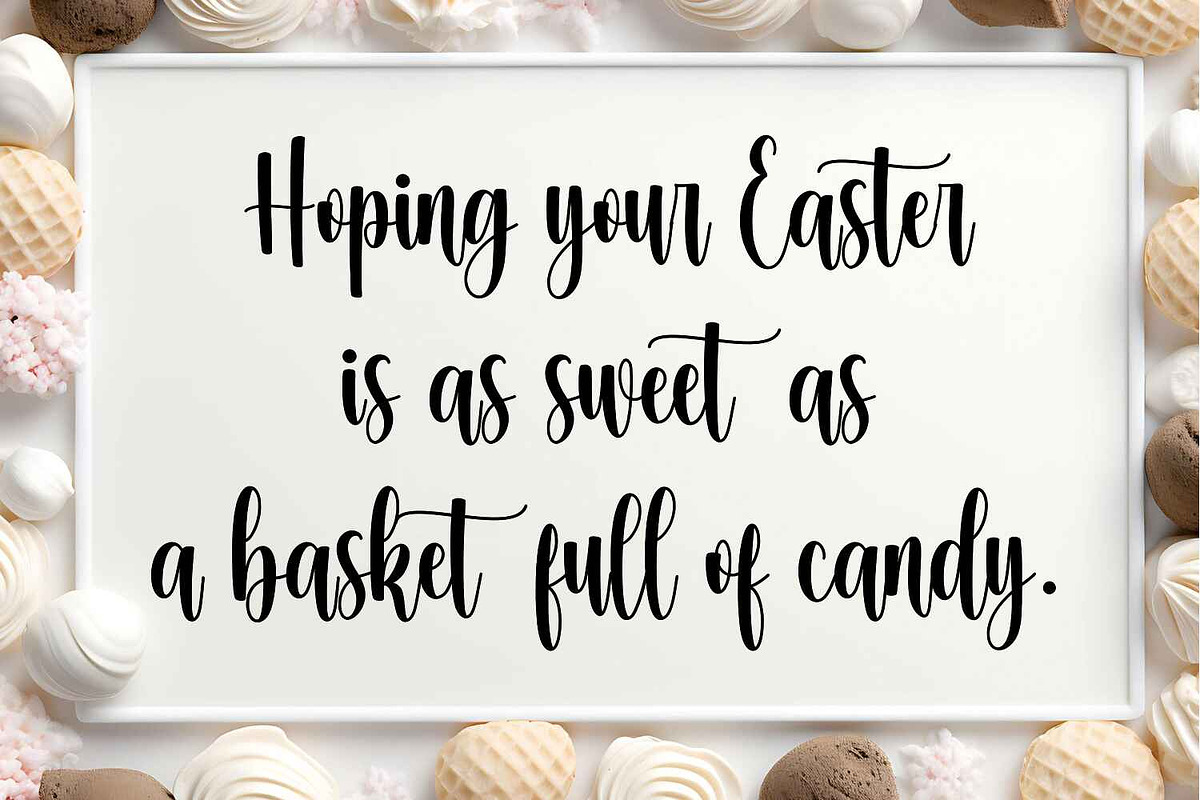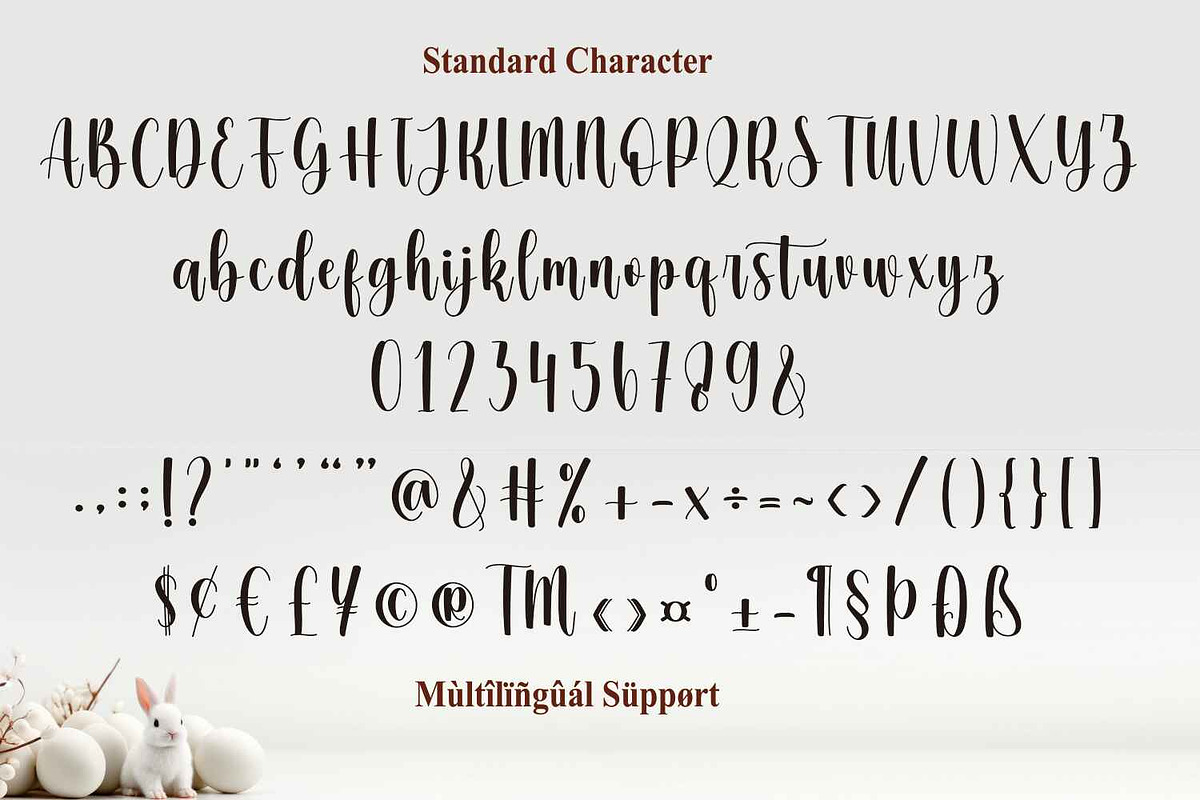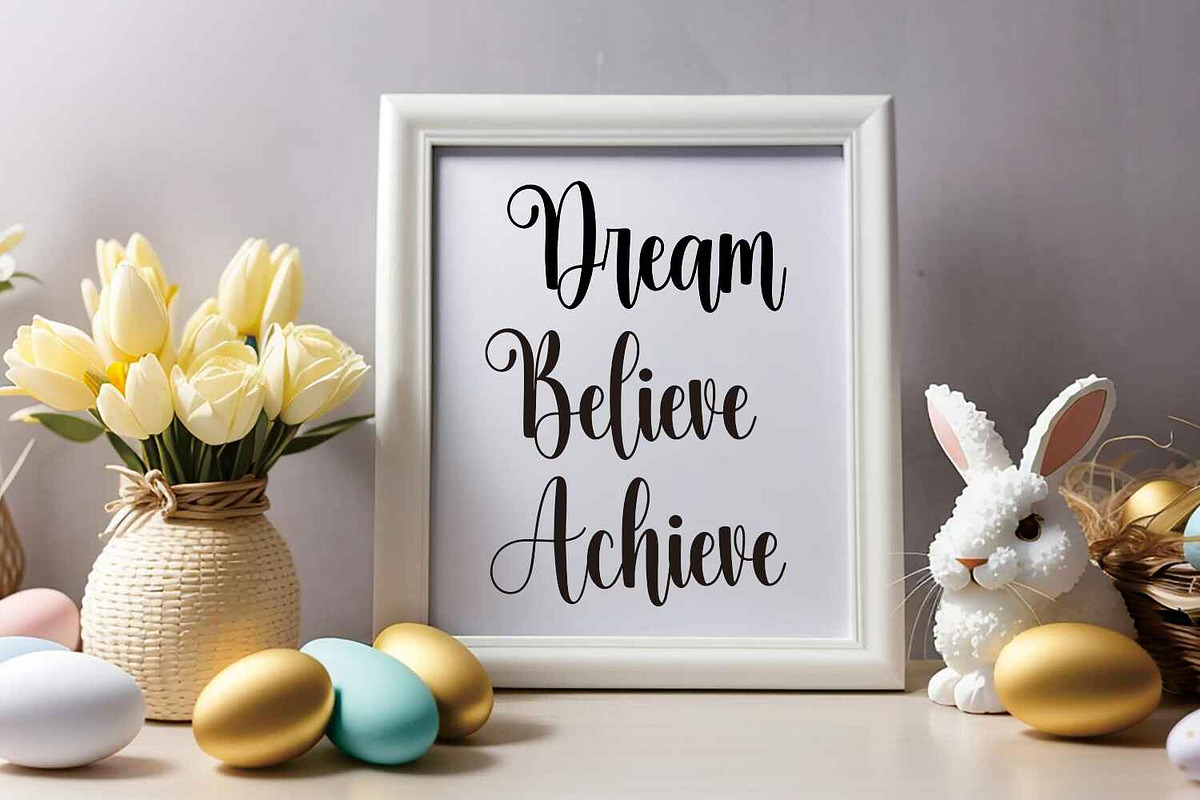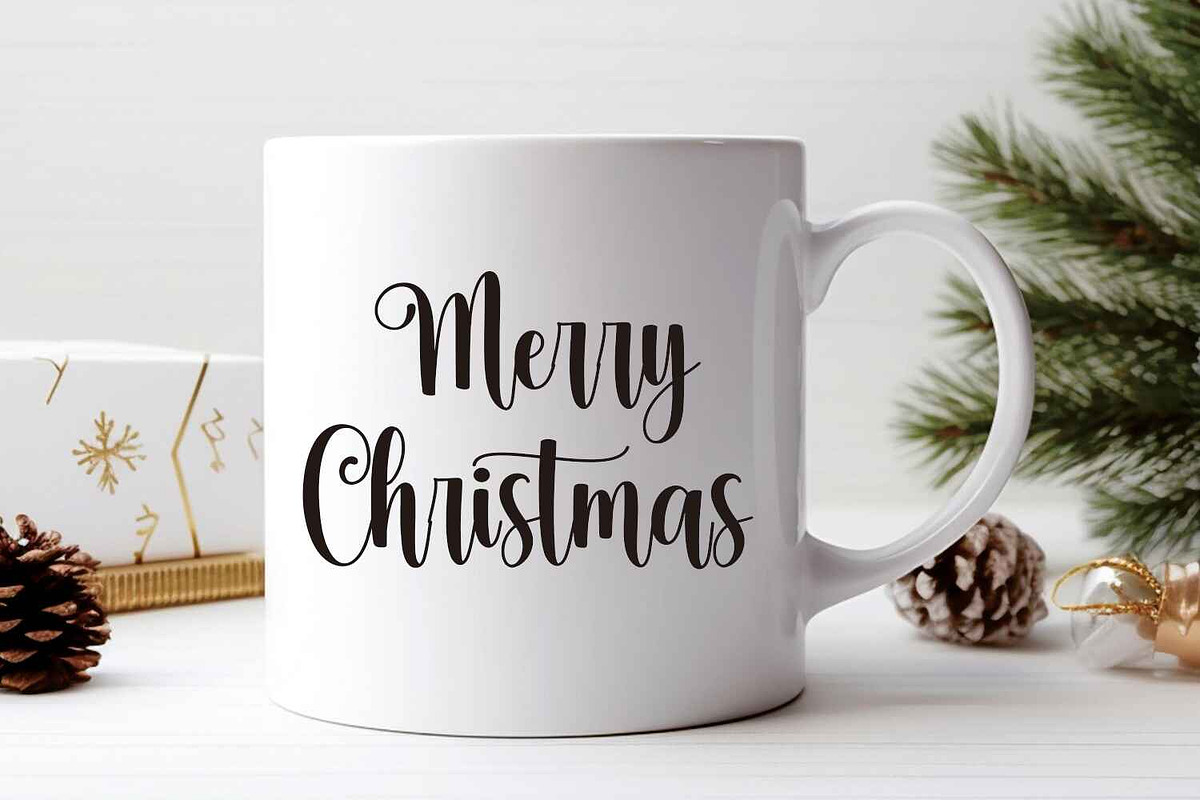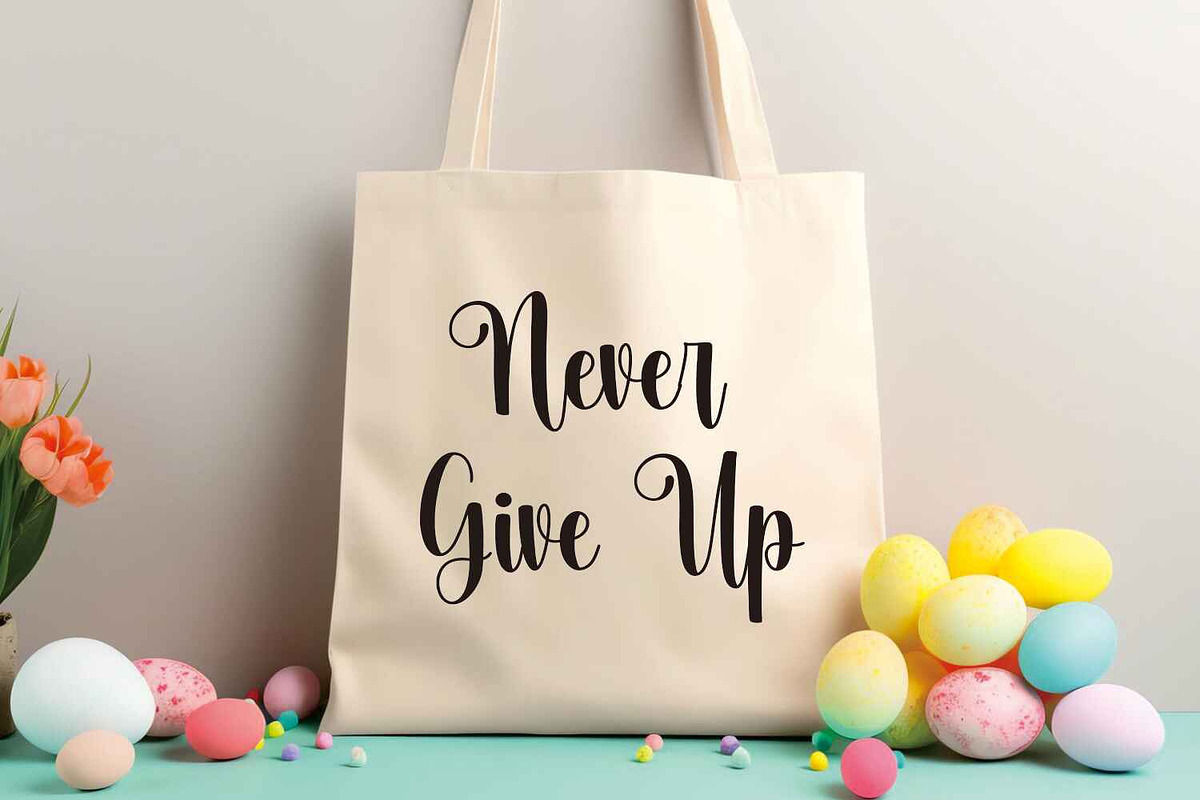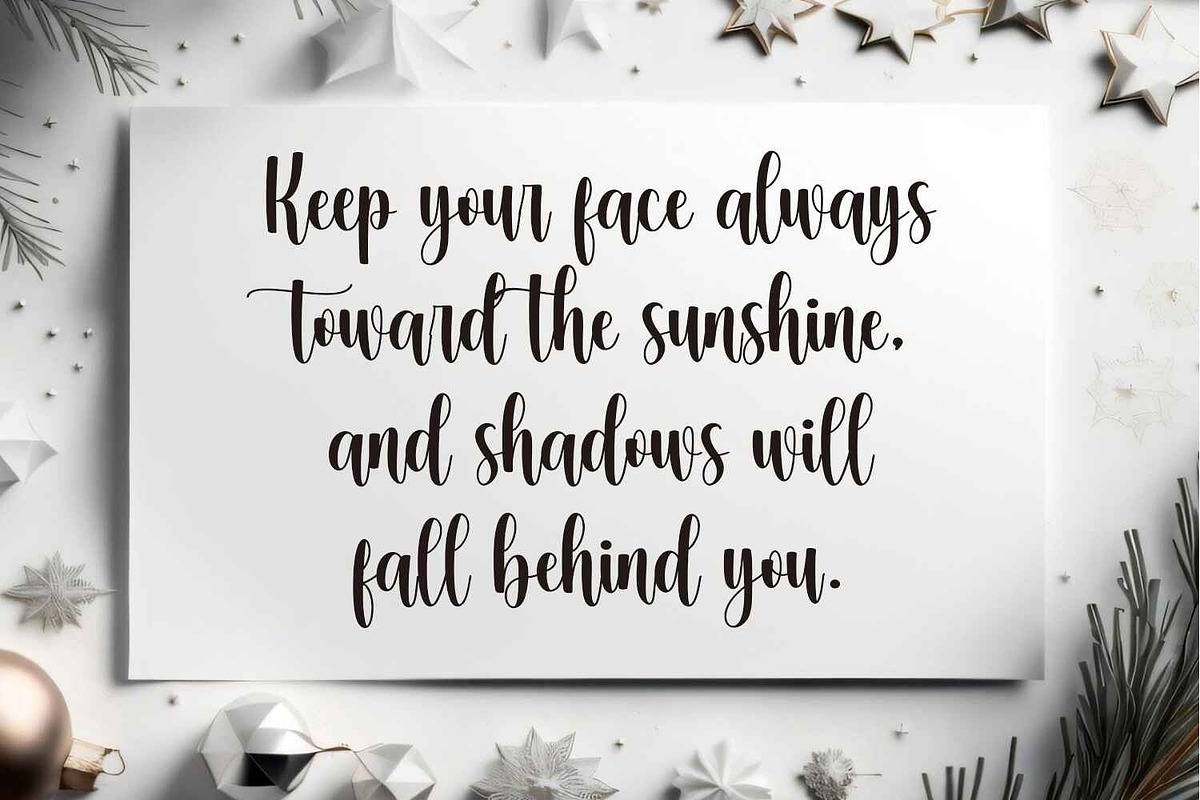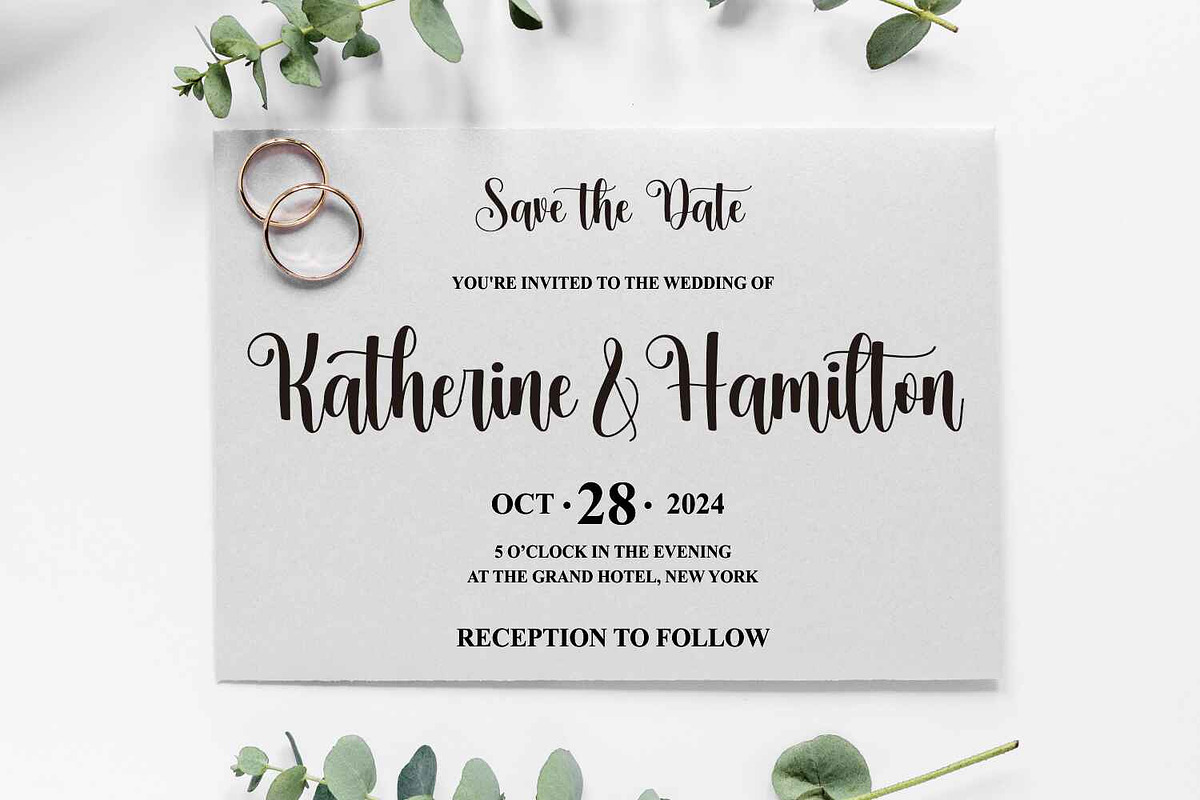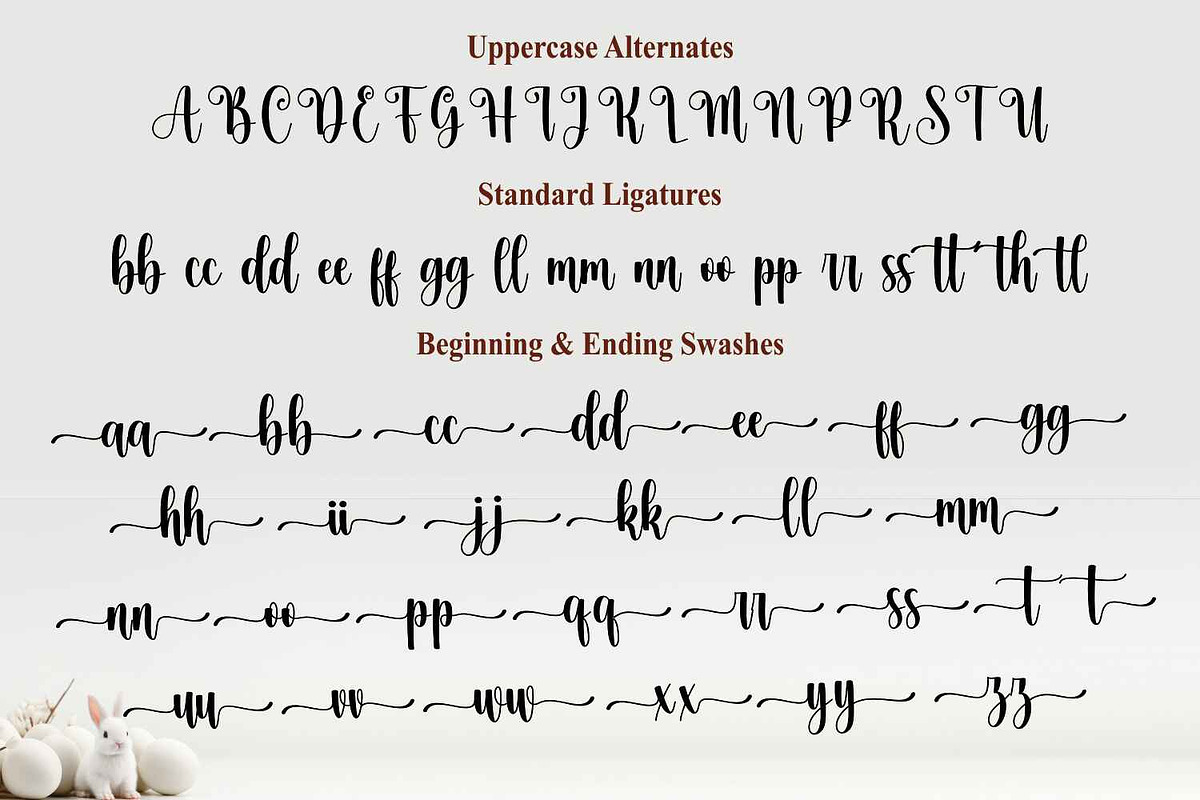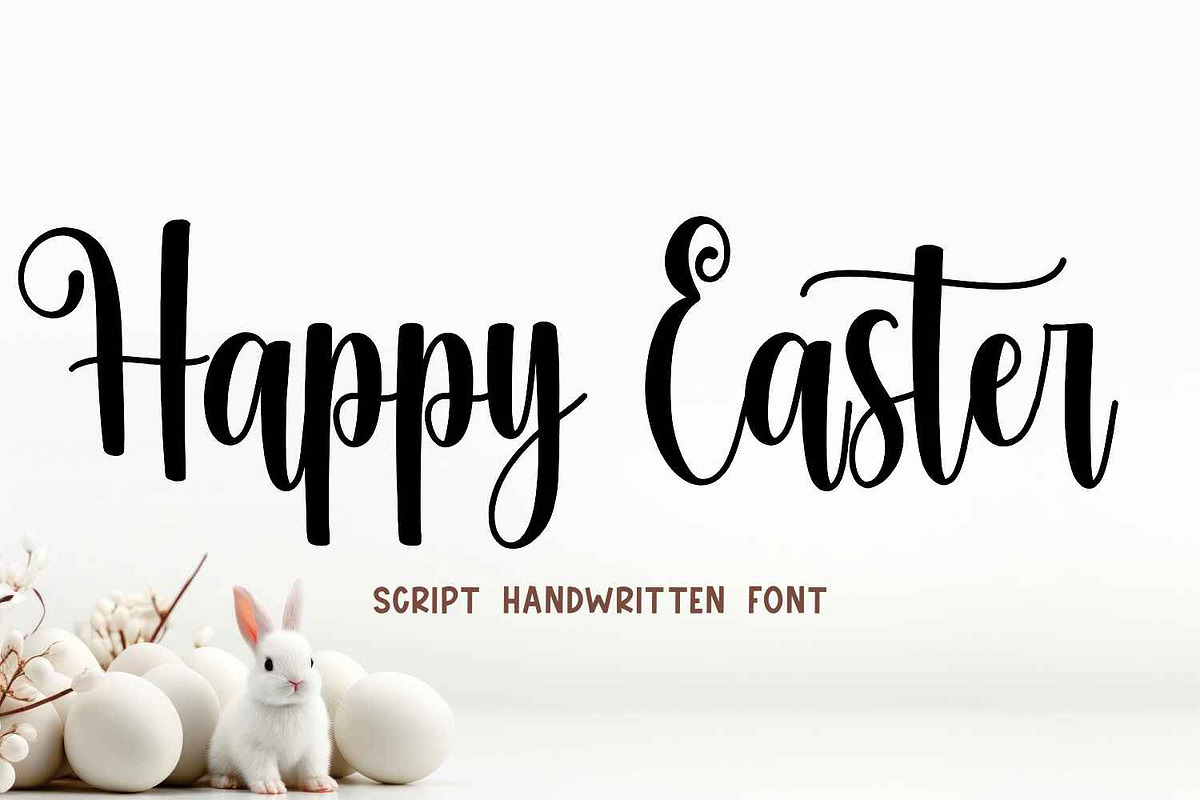
Happy Easter
Introducing the Happy Easter font: a whimsical script handwritten typeface perfectly suited for all your Easter-themed projects! This delightful font captures the essence of Easter with its playful strokes and charming aesthetic. Whether you're crafting Easter cards, creating festive decorations for your home, or adding a touch of Easter spirit to your digital designs, Happy Easter font is your go-to choice. Its versatility makes it ideal for cricut, embroidery, Thanksgiving projects, Christmas crafts, and so much more.
Celebrate the season with the Happy Easter font and infuse your creations with joy and cheer. This font brings a unique flair to your lettering and design projects, elevating them with its distinct style. From adorable Easter bunny motifs to elegant script lettering, Happy Easter font offers endless possibilities for expressing your creativity. Get ready to impress friends, family, and clients alike with stunning Easter-themed designs that stand out from the crowd.